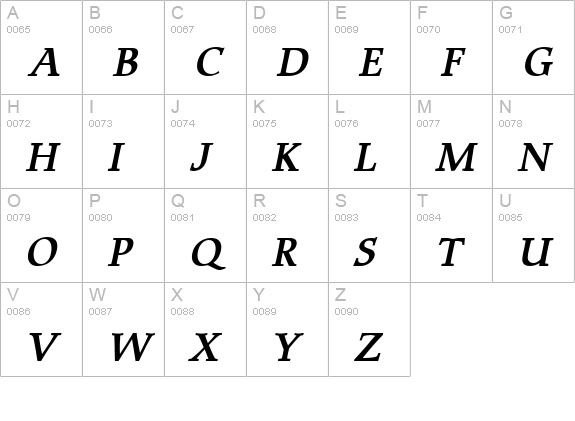
Carmine Bold Italic Font Details
Carmine Bold Italic is a strong, high-contrast, italic variant in the Carmine typeface family \xE2\x80\x94 well suited to headlines, attention-grabbing titles, and strong calls-to-action.
Carmine Bold Italic is a stunning and versatile font that exudes elegance and sophistication. Its bold yet graceful strokes make it perfect for adding a touch of luxury to any design project. The combination of boldness and italic styling creates a unique and eye-catching look that is sure to make a statement. This font is ideal for use in headings, logos, invitations, and other design elements where you want to make a bold impression. Whether you're creating a poster, branding materials, or a website, Carmine Bold Italic is sure to elevate your design to the next level. The best part? Carmine Bold Italic is available for free download at FontsMarket.com. Now you can add this beautiful font to your collection without breaking the bank. Don't miss out on this opportunity to enhance your designs with the timeless elegance of Carmine Bold Italic.